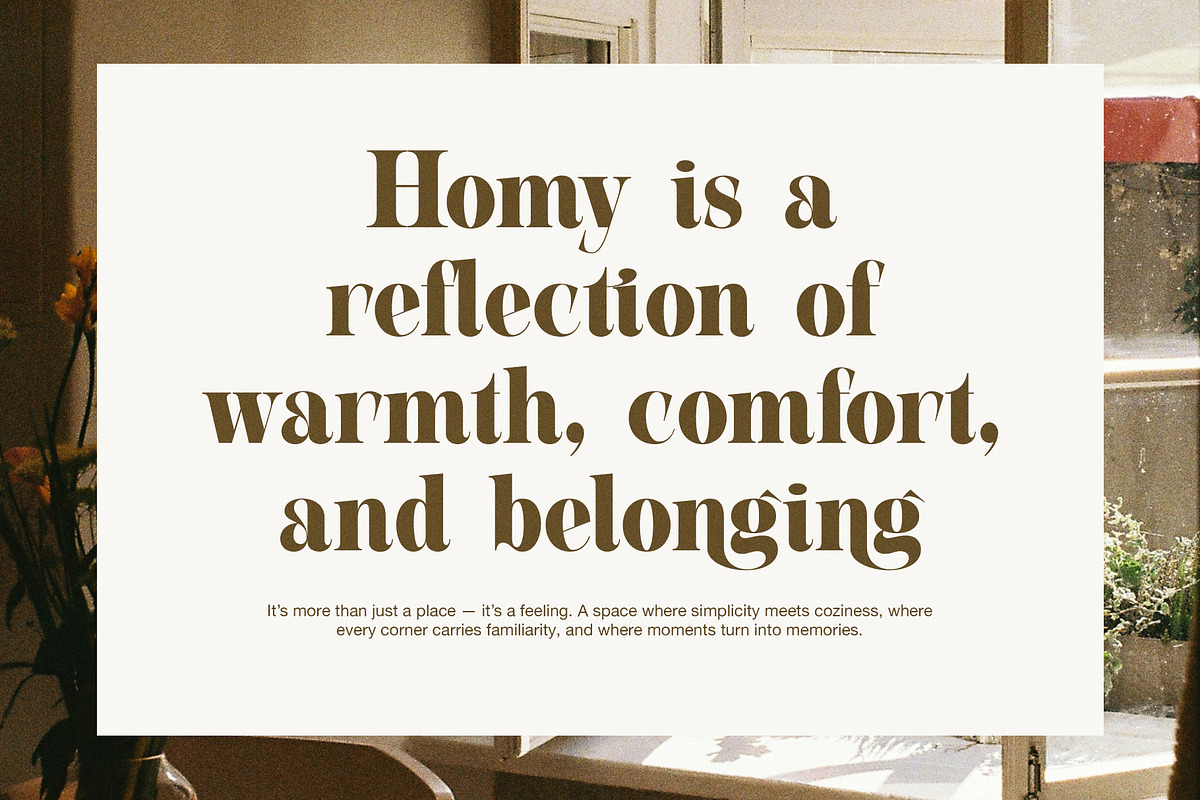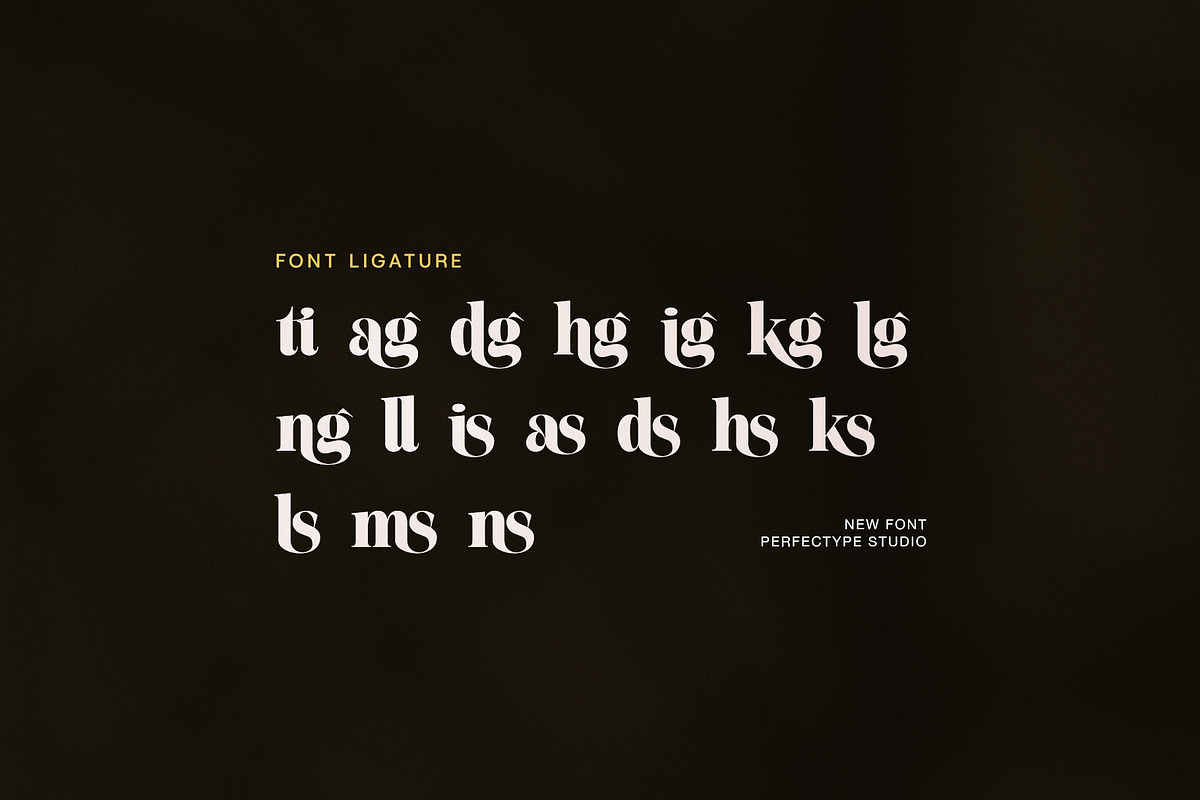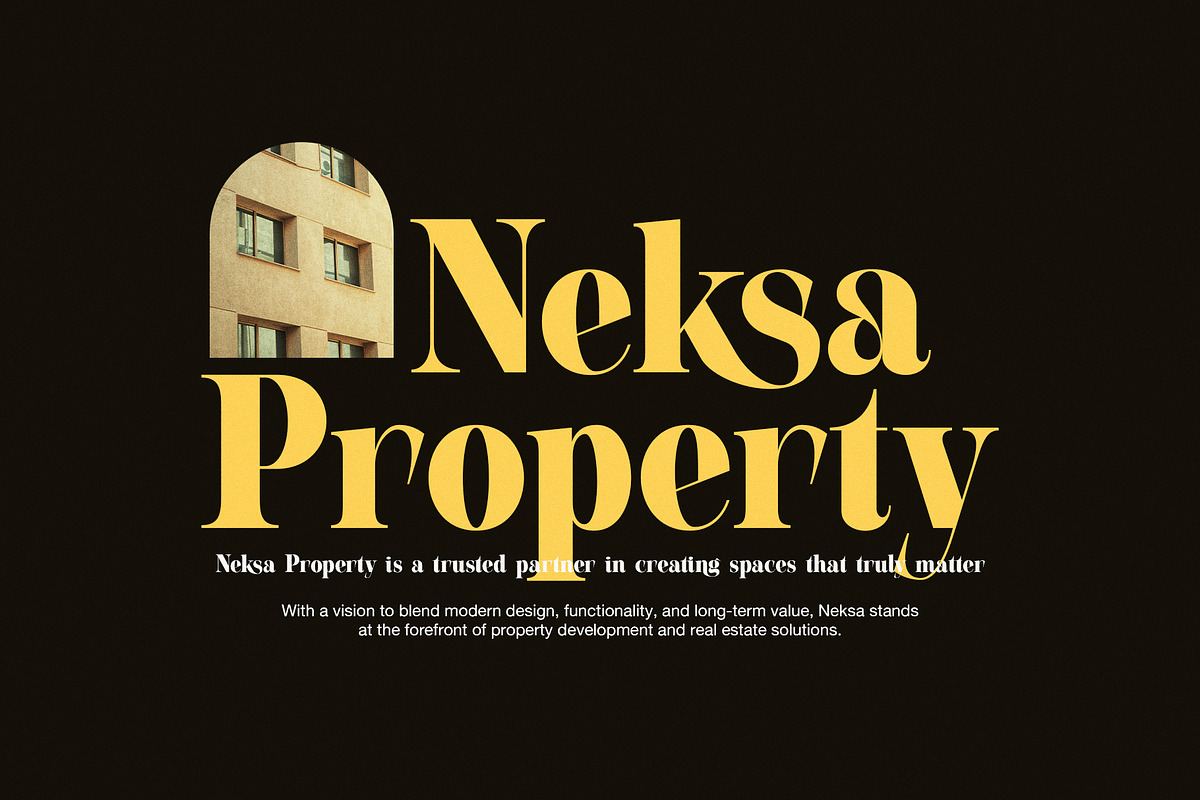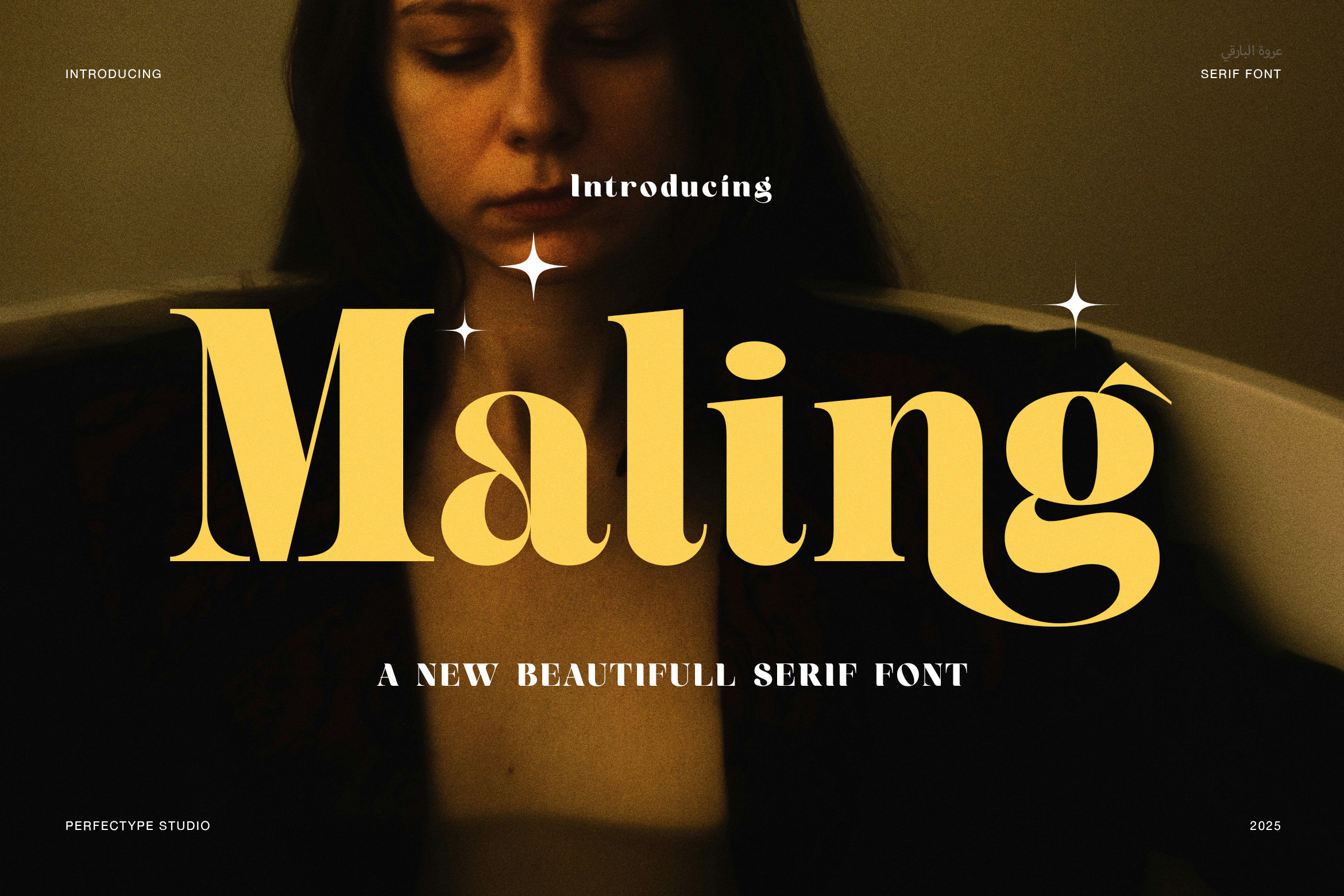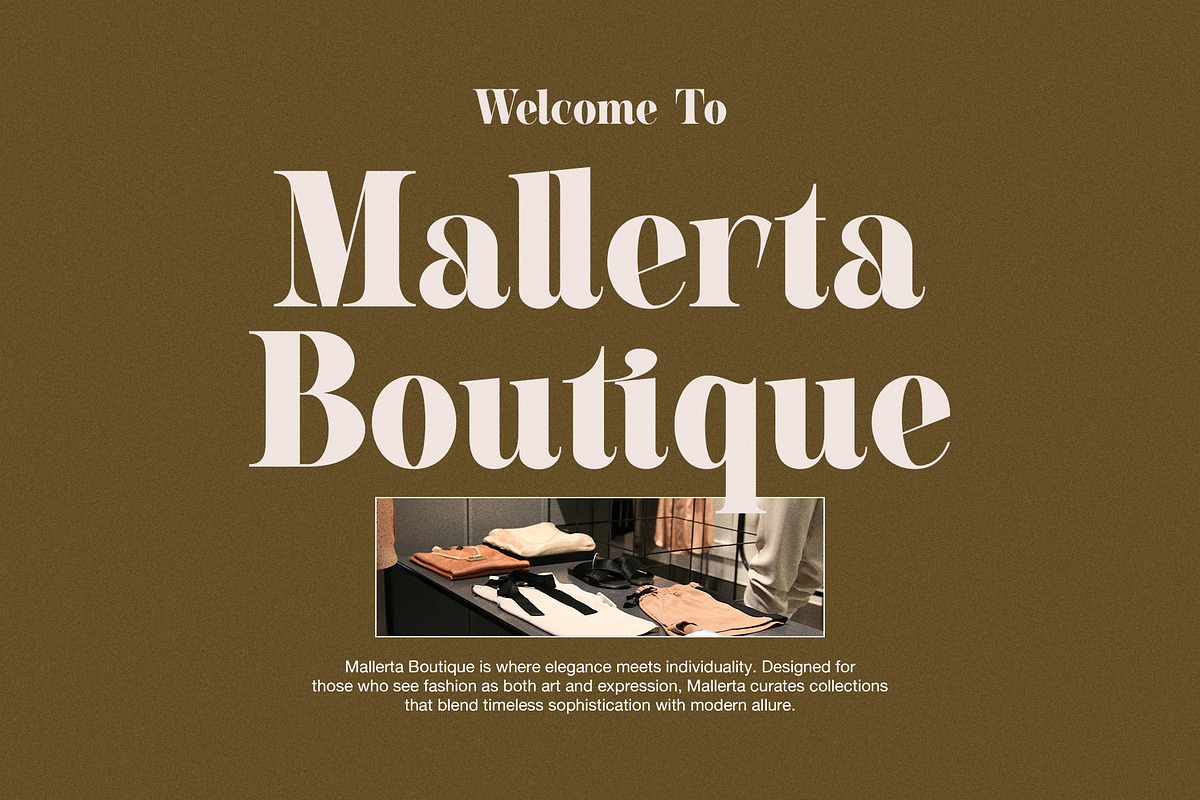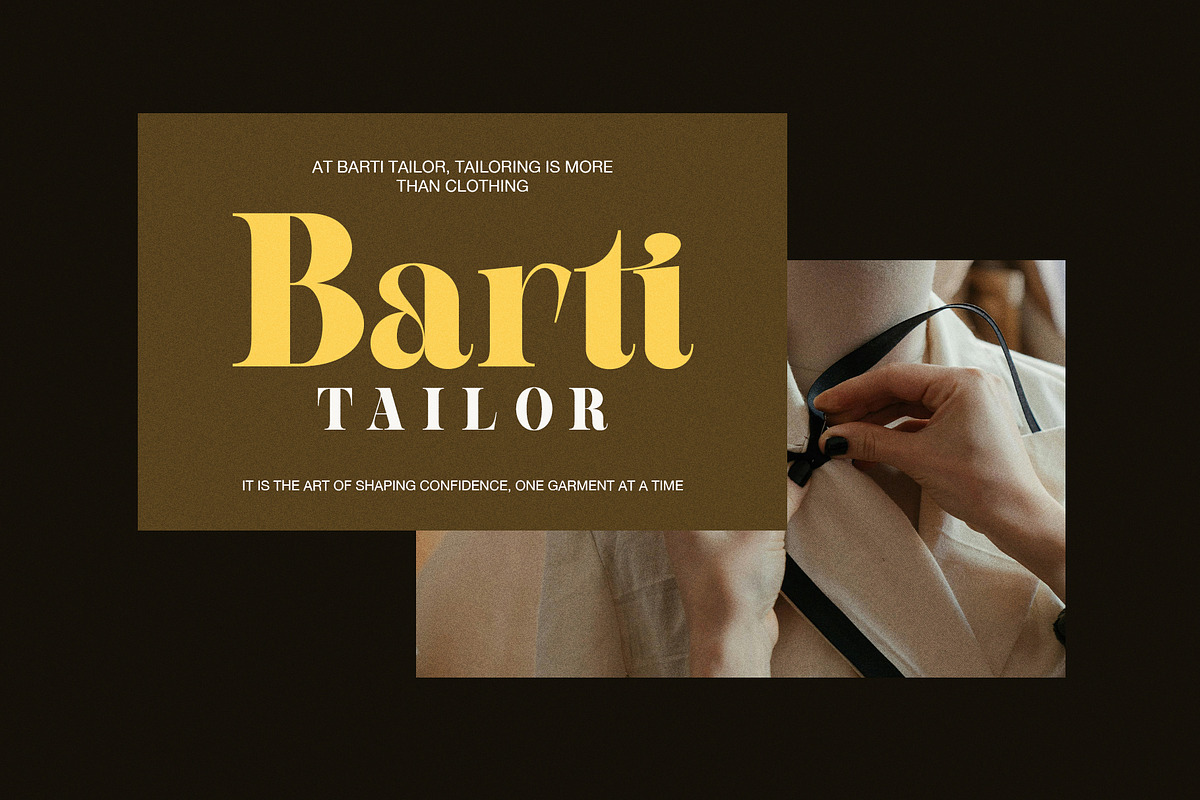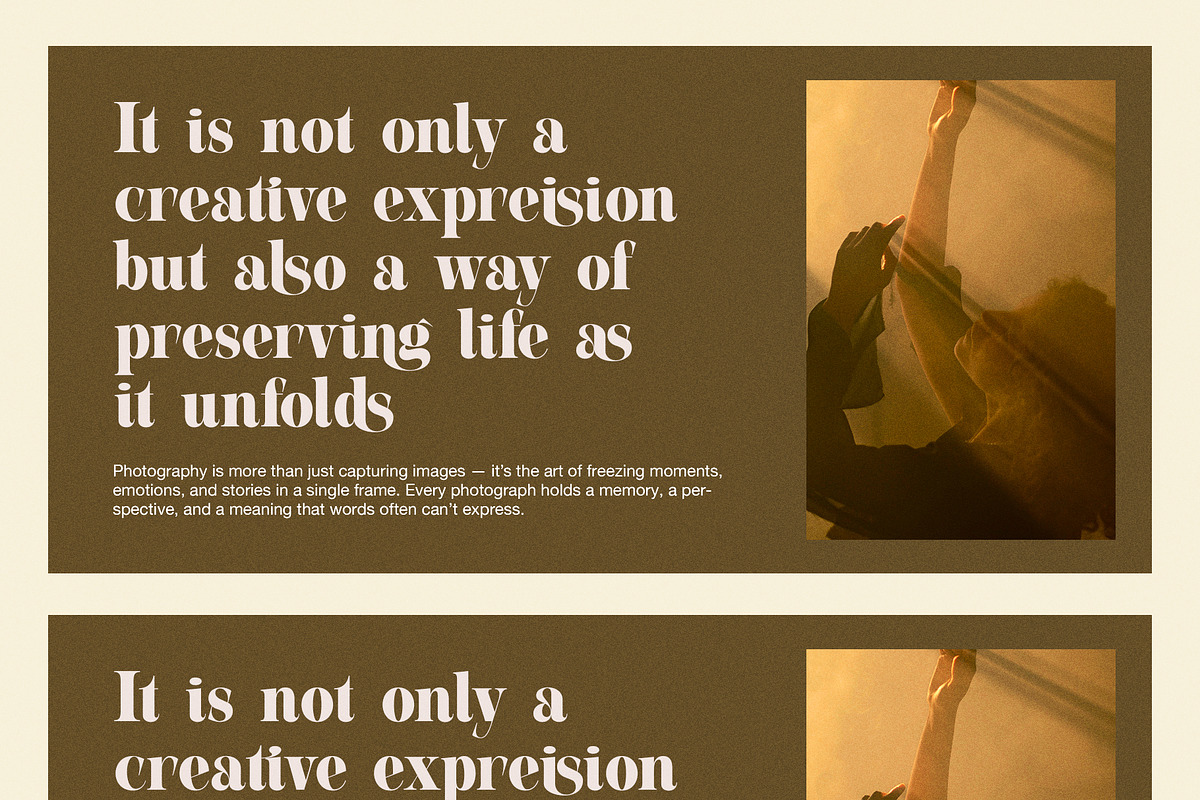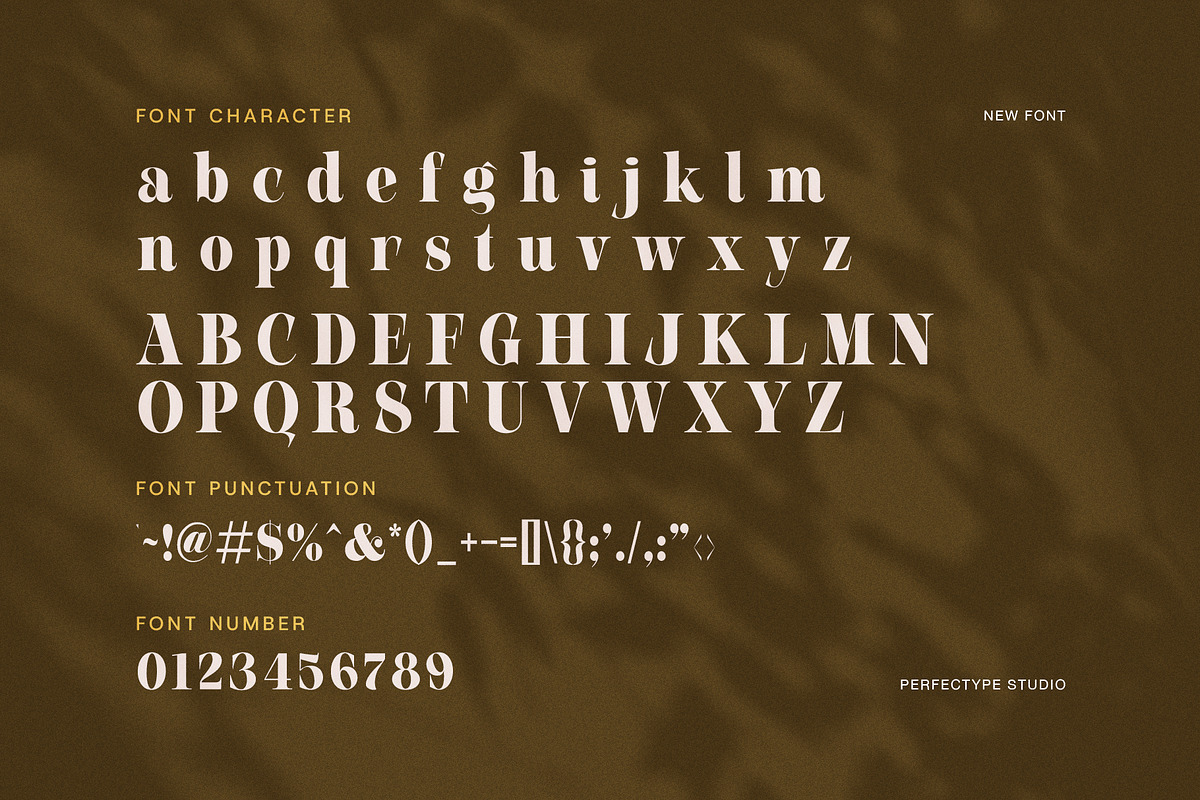
Maling Elegant Serif Font
Maling Elegant Serif is a clean and graceful serif font that blends classic style with modern ease. Its smooth shapes and soft serifs bring a timeless feel, making it great for many projects. For example, it works well for branding, magazine layouts, wedding cards, and high-end packaging.
The shape of Maling features well-balanced letters with clear differences between thick and thin parts. This helps make text easy to read, even at smaller sizes. Also, its slightly narrow letters save space without losing style. Therefore, it suits both headlines and longer text.
In terms of style, Maling combines old-fashioned charm with a fresh look. It pairs nicely with simple sans serif fonts and flowing script fonts. Plus, its neat design gives a professional and polished feel, perfect for fashion brands, magazines, and special events.
Maling works well in both print and online use. Whether in magazines, business cards, or websites, it stays clear and attractive. Also, it supports many languages, so your designs can reach more people.
Main features of Maling Elegant Serif include:
Classic serif look with a modern touch
Clear differences in thick and thin strokes
Space-saving narrow letter shapes
Great for branding, magazines, and weddings
Works in print and digital designs
Supports many languages
Using Maling Elegant Serif means adding clear, stylish, and classic text to your projects. It’s more than a font—it’s a way to make your work stand out with class and ease.